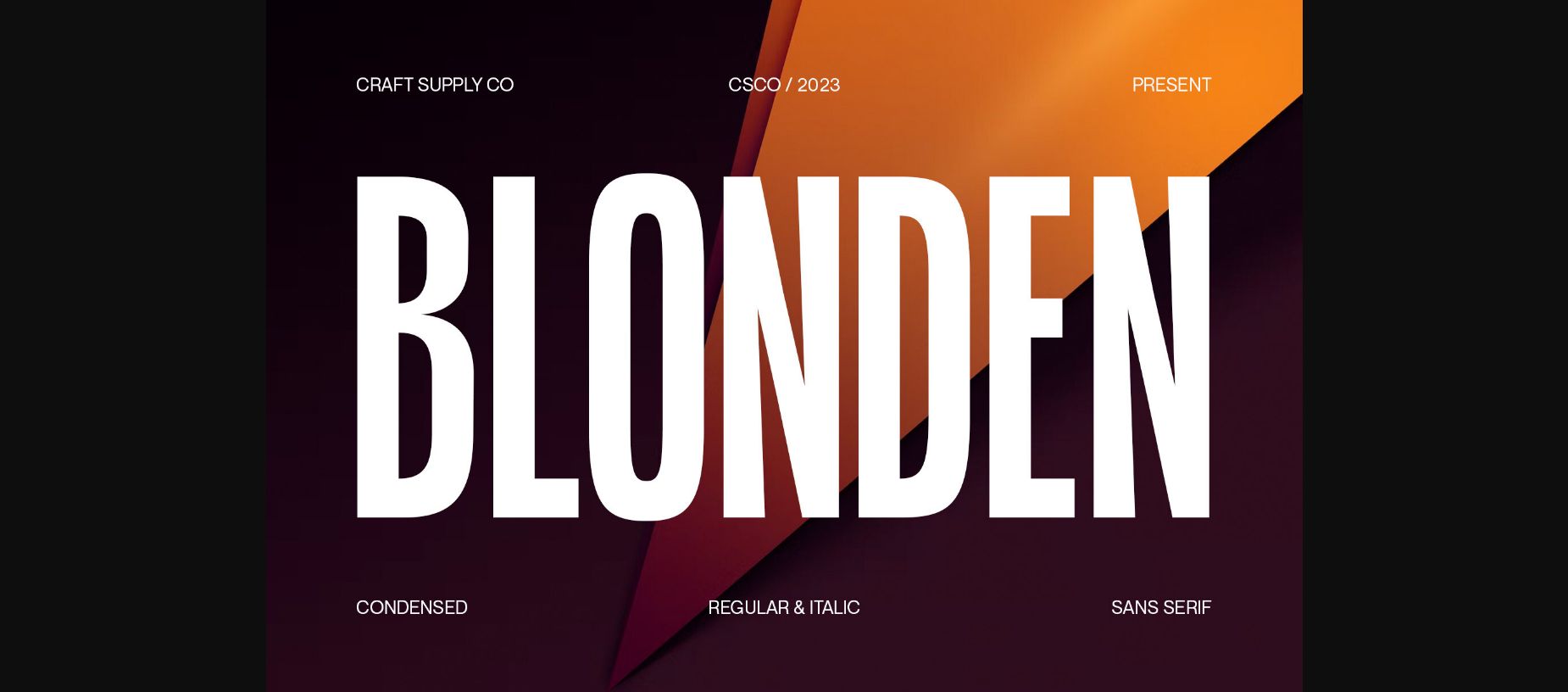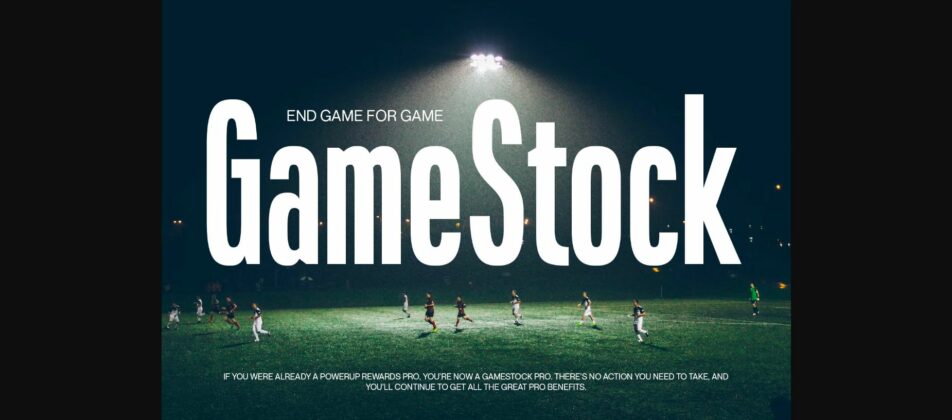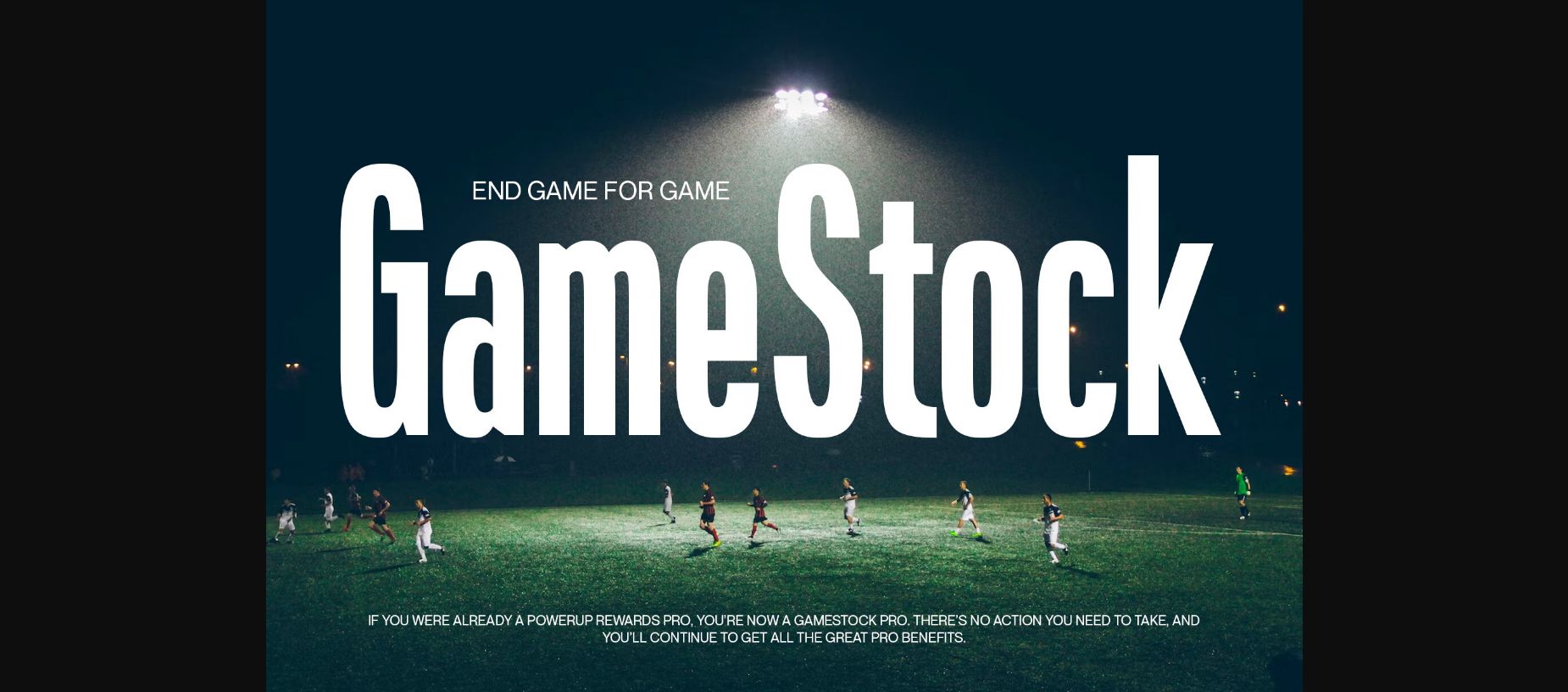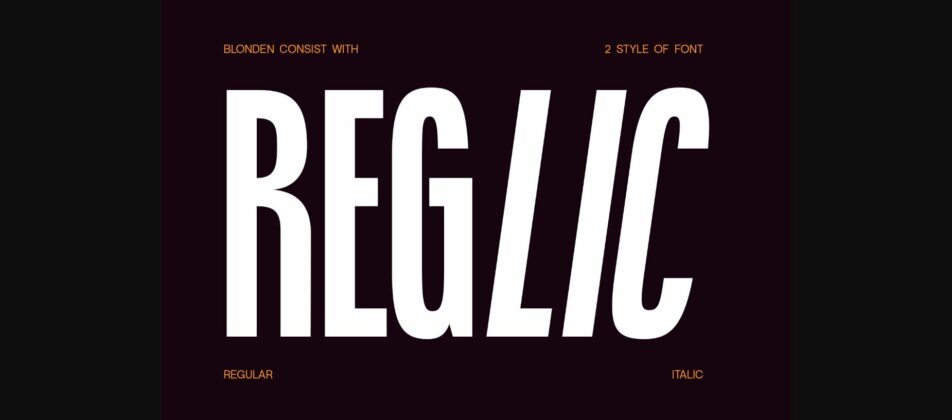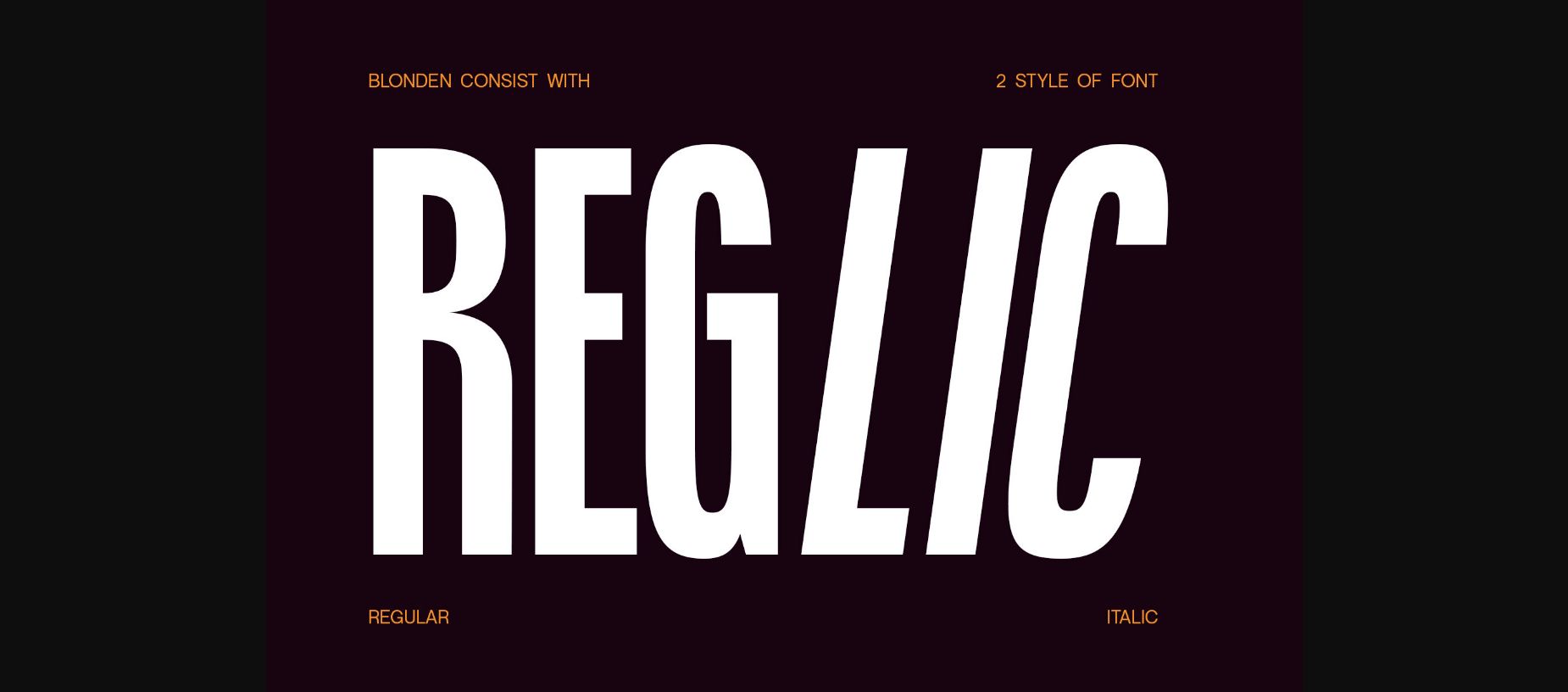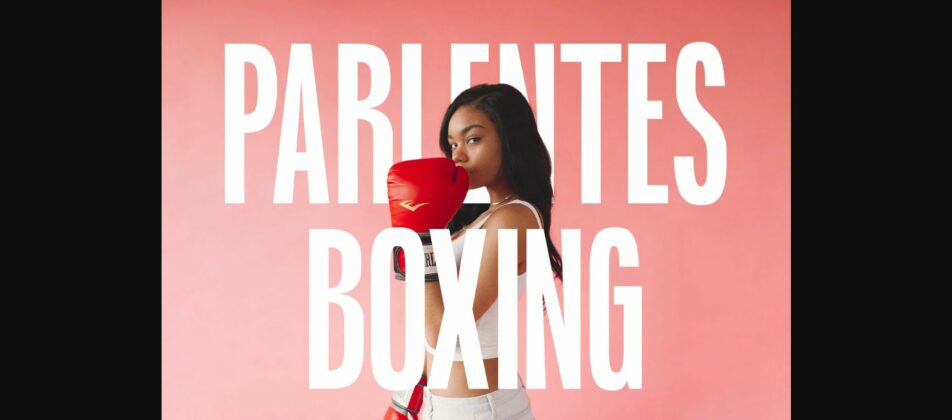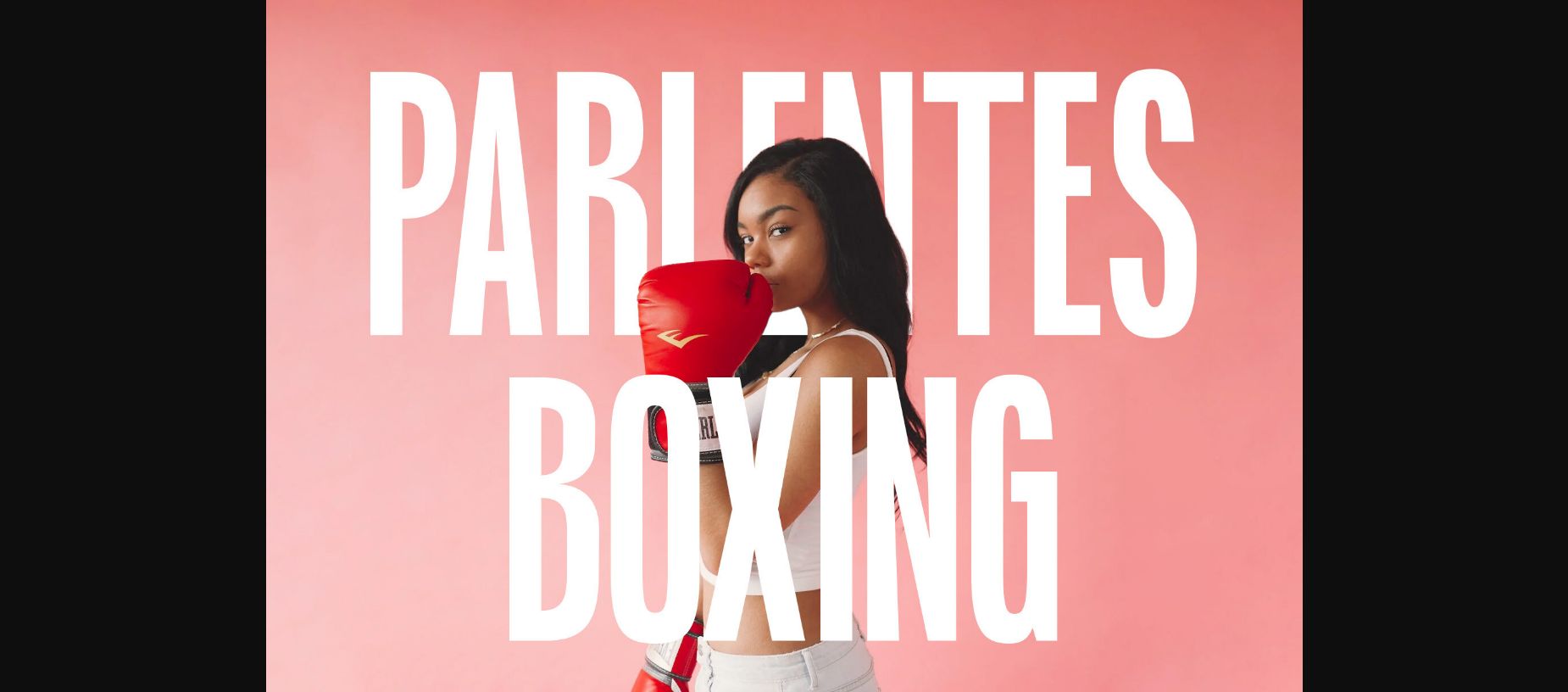
About Blonden Font
Introducing Blonden: A condensed sans-serif font that fuses modernity with streamlined efficiency. Blending style and compactness, Blonden brings a dynamic edge to any design. Experience the sleek versatility of Blonden’s condensed form, perfect for making bold statements in tight spaces.
This typeface is ideal for greeting cards, packaging, brand identity, poster, or any purpose to make your design project look eye-catching and trendy. Feel free to play with this typeface!